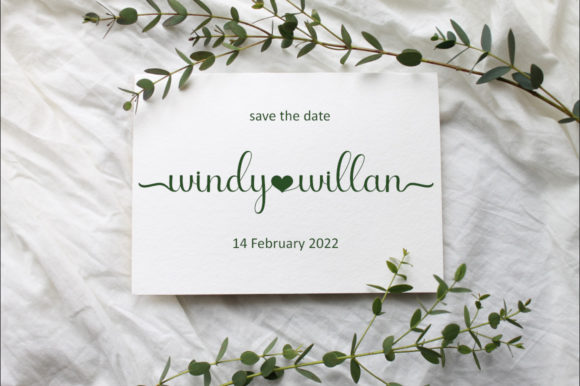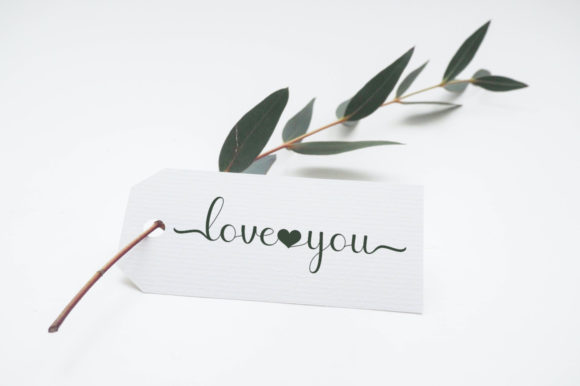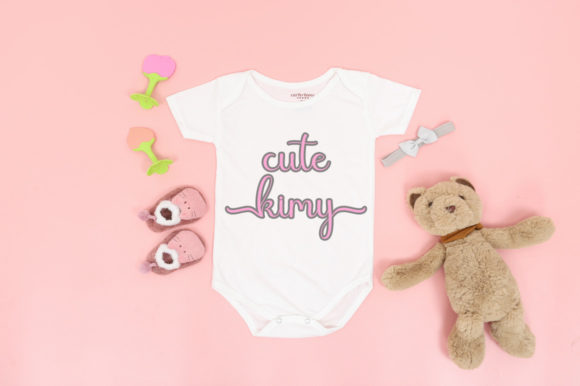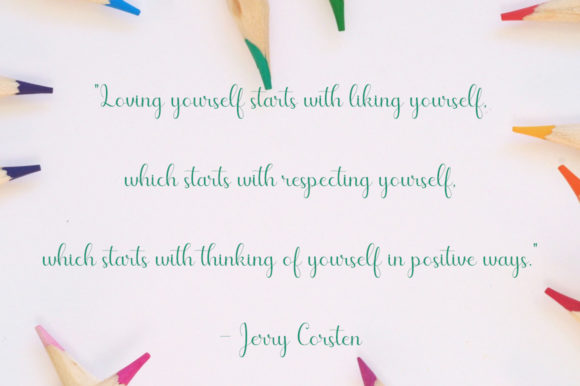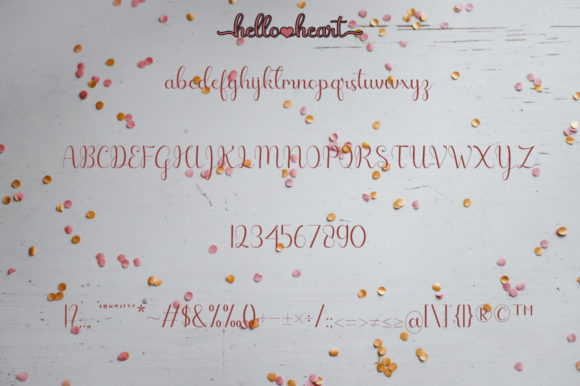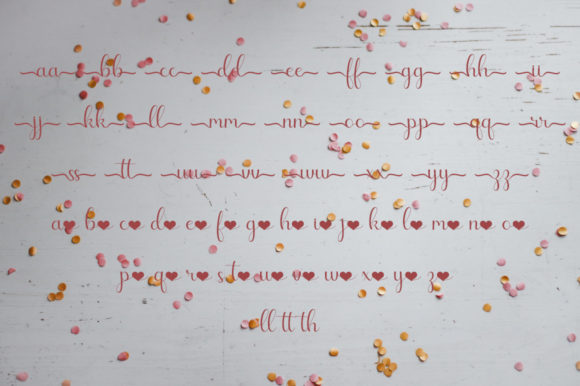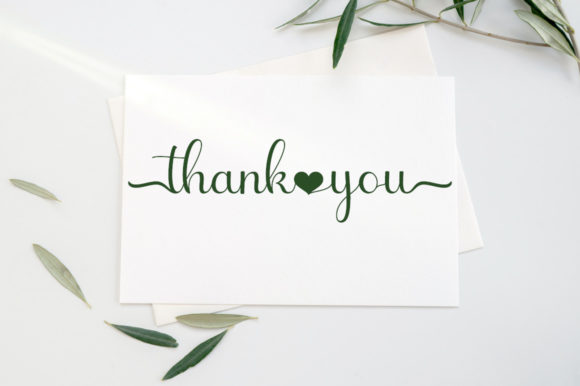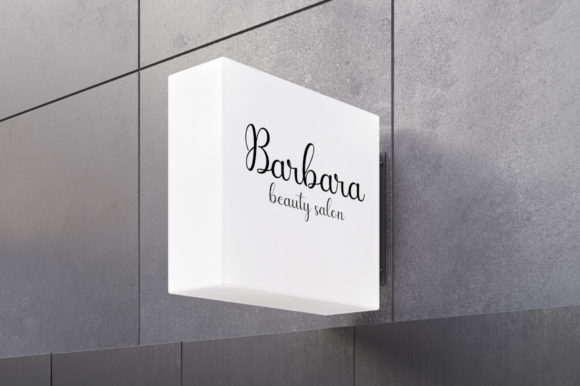
Hello Heart Font
About Hello Heart Font
Hello Heart is a romantic, cute, and beautiful script font.
It will look outstanding in a wide range of contexts.